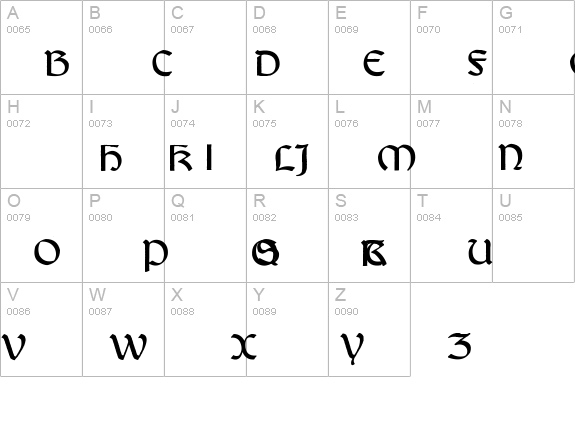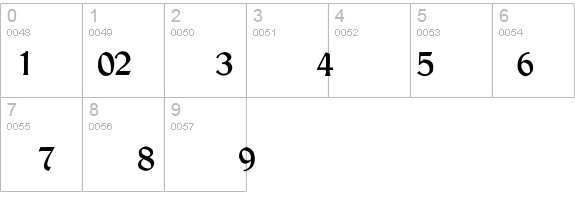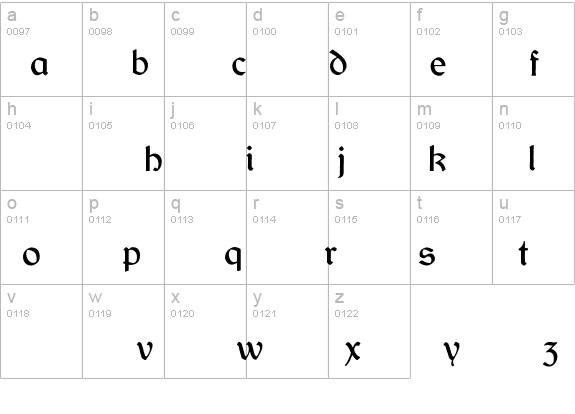
Dundalk Font Details
Dundalk font is a stylish and modern typeface that exudes elegance and sophistication. With its sleek lines and distinctive letterforms, Dundalk is perfect for a wide range of design projects, from branding to editorial design. This versatile font is available in a variety of weights and styles, making it easy to create eye-catching designs that stand out. Whether you're working on a poster, logo, website, or any other project, Dundalk is sure to make a bold statement. What's even better is that Dundalk font is completely free to download at FontsMarket.com. So go ahead and add this stunning typeface to your collection today and take your designs to the next level!